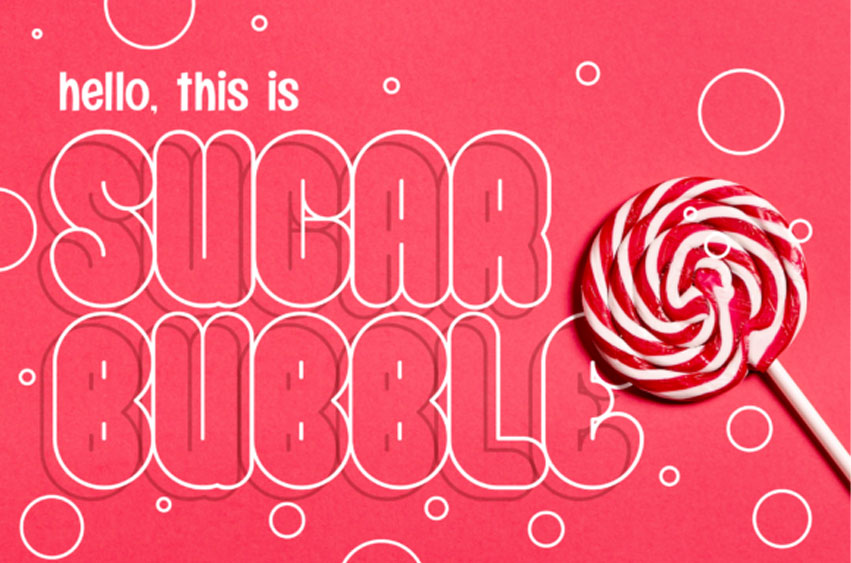
Sugar Bubble Font
Sugar Bubble Font is a cute and chunky lettered display font. It embodies fun, uniqueness and authenticity.
This dazzling display font will turn any creative idea into a standout!